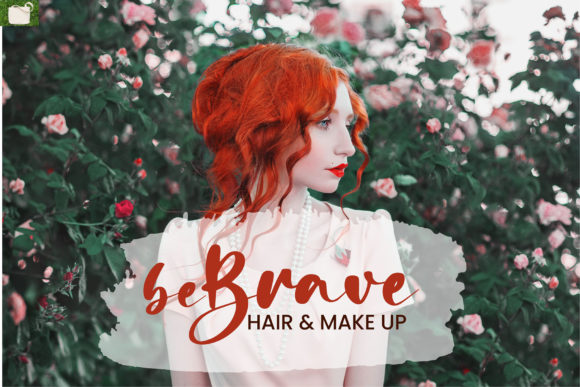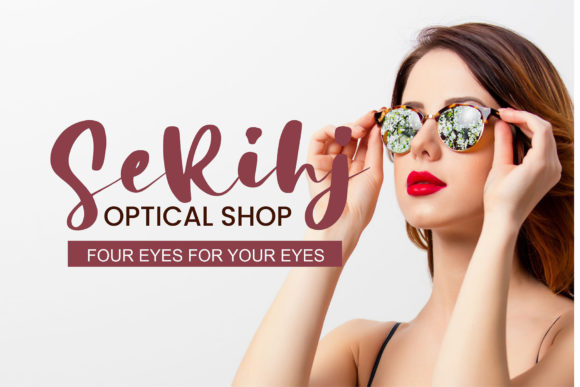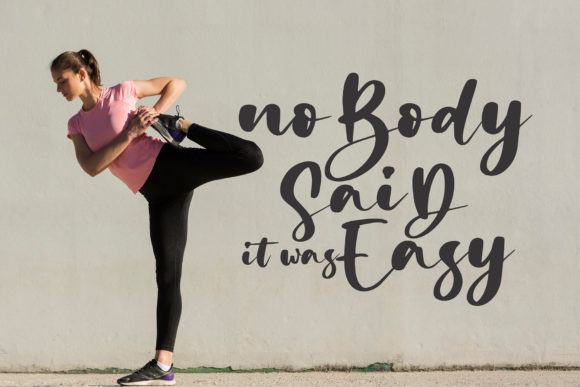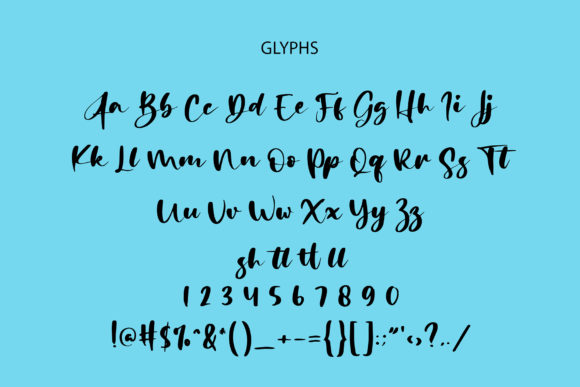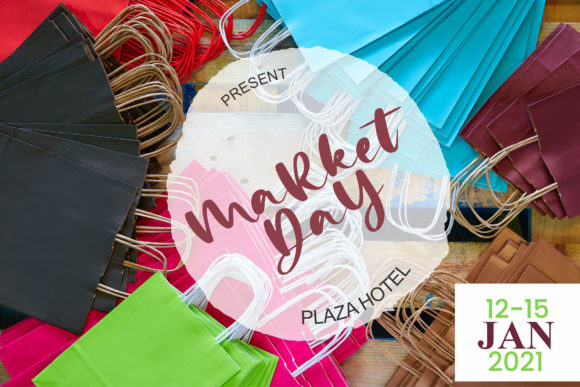
Sahila Kyle Font
About Sahila Kyle Font
Sahila Kyle is a trendy and unique brushed handwritten font. It is suitable for any branding, product packaging, invitation, quote, t-shirt, label, poster, logo that you wish to create.